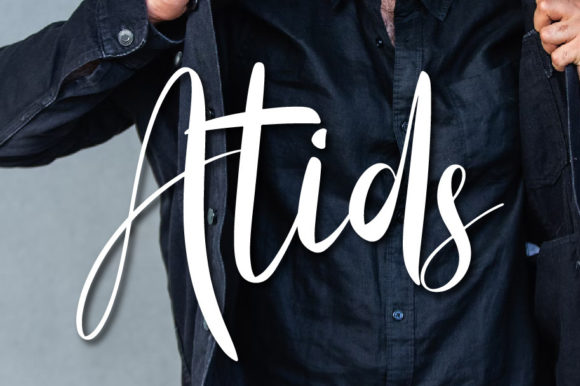
Atids Script: A Timeless Touch for Your Creative Projects
There’s a certain warmth that digital design often misses. We scroll through countless layouts, all perfectly aligned, all using the same geometric sans serifs. They’re clean, they’re modern, but they can feel… impersonal. Then you encounter a typeface like Atids Script, and everything changes. It doesn’t just display words; it conveys a feeling, a personality, a human touch that immediately draws the eye. This isn’t just another decorative font. It’s a carefully crafted tool for designers, entrepreneurs, and creators who want their work to feel authentic and memorable.
Understanding the Visual Character of Atids Script
Atids Script is a handwritten font that balances elegance with approachability. Its letters flow with a natural, connected rhythm, reminiscent of skilled penmanship rather than mechanical reproduction. Each character features subtle variations in stroke weight and gentle, organic curves. This gives the typeface a lively, almost tactile quality. It’s not overly formal or calligraphic, which keeps it feeling modern and versatile. The overall personality is one of sophisticated friendliness—polished enough for professional use, yet personal enough to create an instant connection.
The style of Atids Script positions it firmly as a display font. Its strength lies in headlines, logos, and short bursts of impactful text where its detailed character can shine. Using it for long paragraphs would compromise readability, but that’s not its purpose. Think of it as the centerpiece of your design, the element that sets the tone. When paired with a clean serif font for body copy or a neutral sans serif font for supporting information, it creates a powerful and balanced font pairing that guides the viewer’s eye and establishes clear visual hierarchy.
Where This Creative Font Truly Comes Alive
The applications for a premium font like Atids Script are vast, spanning both digital and physical realms. Its ability to convey authenticity makes it a powerhouse for brand identity projects.
- Logo Design & Branding: This is where Atids Script excels. It can become the cornerstone of a brand’s visual identity, especially for businesses aiming for a boutique, artisanal, or personal feel. Imagine it on a coffee shop’s menu, a wedding planner’s stationery, or the logo for a handmade skincare line. It communicates care, quality, and a personal story.
- Packaging Design: On product labels and packaging, this font can elevate a shelf presence. It works beautifully for gourmet foods, craft beverages, cosmetics, and any product where the human touch is a key selling point. It makes the package feel like a gift, not just a container.
- Editorial & Publishing: For book covers, chapter headings, magazine pull quotes, and blog post titles, Atids Script adds a layer of elegance and intrigue. It’s perfect for genres like romance, lifestyle, memoir, or cookbooks, setting the mood before a single page is turned.
- Digital & Social Media: In the fast-paced world of web design and social media graphics, standing out is crucial. Use this creative font for impactful website hero text, Instagram story highlights, YouTube thumbnails, or Pinterest pins. It stops the scroll and adds personality to your digital content.
- Print & Personal Projects: Beyond commercial use, it’s a fantastic design asset for personal creations. Think custom wedding invitations, thank-you cards, motivational posters, or quotes for framing. For crafters and hobbyists, it brings a professional polish to DIY projects.
Practical Guidance for Implementing Atids Script
Choosing and using a script font effectively requires a bit of strategy. Here’s how to integrate Atids Script into your workflow for the best results.
Evaluating Fit and Readability
Before you commit, ask: does the personality of Atids Script align with my project’s message? It’s ideal for themes of creativity, elegance, warmth, and craftsmanship. For a corporate law firm or a tech startup’s main interface, it might not be the right fit. Always test it in context. Create a mockup of your logo or headline. Zoom out to see if it remains legible at a smaller size. Its beauty is in the details, so ensure those details are visible where it will be used.
Mastering Font Pairing and Hierarchy
The key to using any display font successfully is contrast. Pair Atids Script with something simple and structured. A timeless serif font like Garamond or a versatile sans serif font like Lato or Open Sans can provide excellent readability for body text. Use Atids Script for the main headline or brand name, then switch to your paired font for subtitles, descriptions, and paragraphs. This creates a clear rhythm and makes your design easy to navigate. Avoid pairing it with other ornate or highly stylized fonts, as this will create visual chaos.
Reviewing Styles and Commercial Licensing
Many premium fonts come with more than one style. Check if Atids Script includes alternates, ligatures, or swashes. These are variations of letters that can help you avoid repetitive letter shapes and add even more custom flair to your work. Furthermore, always verify the licensing. For any project that will be used commercially—whether it’s a client’s logo, product packaging, or monetized website—you need a proper commercial license. This ensures you’re legally covered and supports the type designers who created the asset.
In the end, selecting a typeface is about choosing a voice. Atids Script offers a voice that is both beautiful and genuine. It’s a tool that doesn’t just fill space but actively shapes perception, builds recognition, and engages your audience on a more human level. By understanding its strengths and applying it thoughtfully, you can transform standard designs into memorable experiences. It’s more than just a modern typography choice; it’s a way to infuse your work with timeless character.